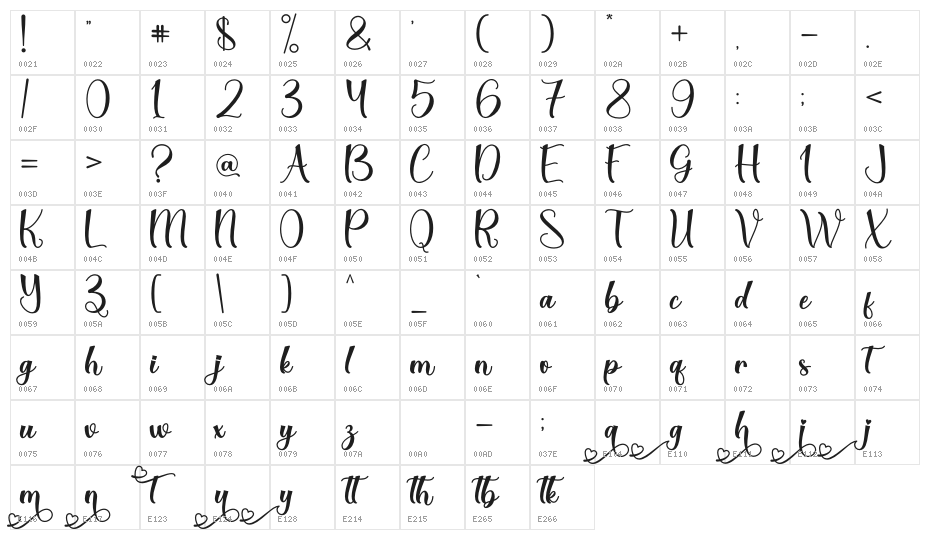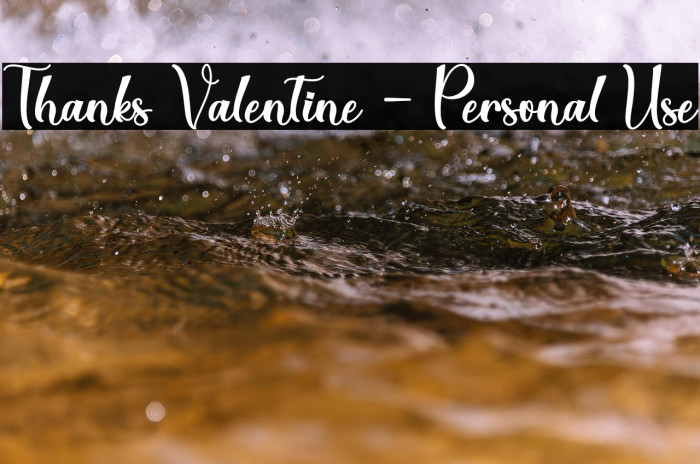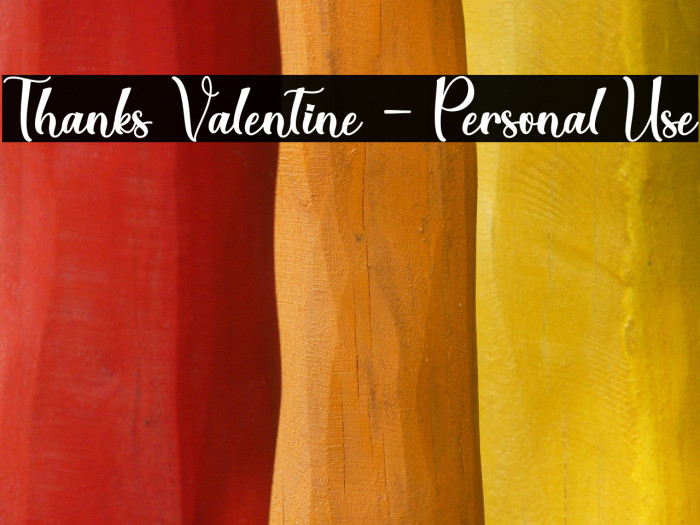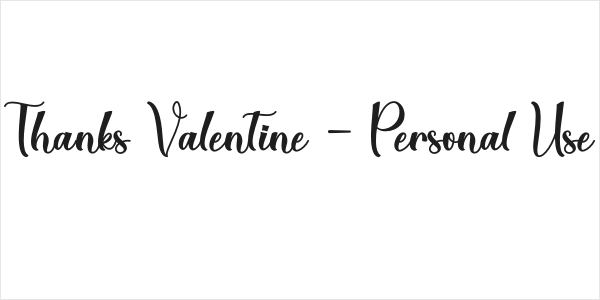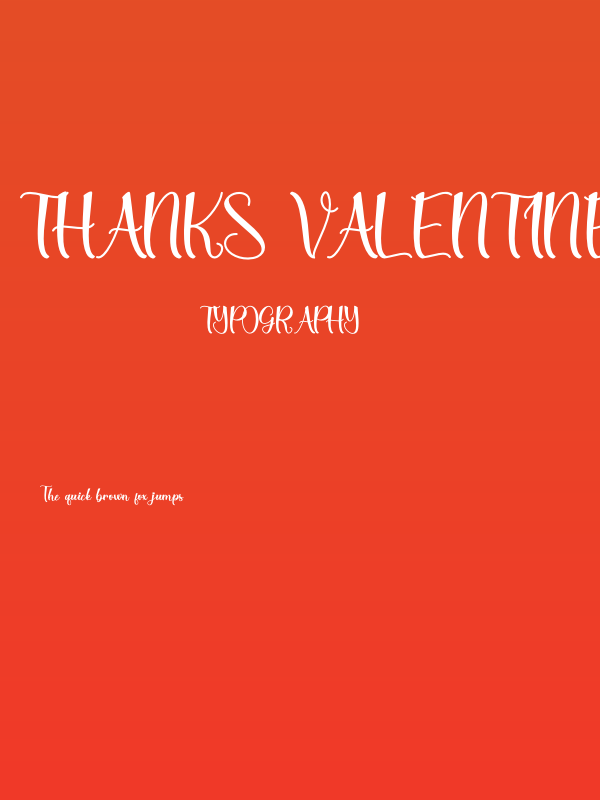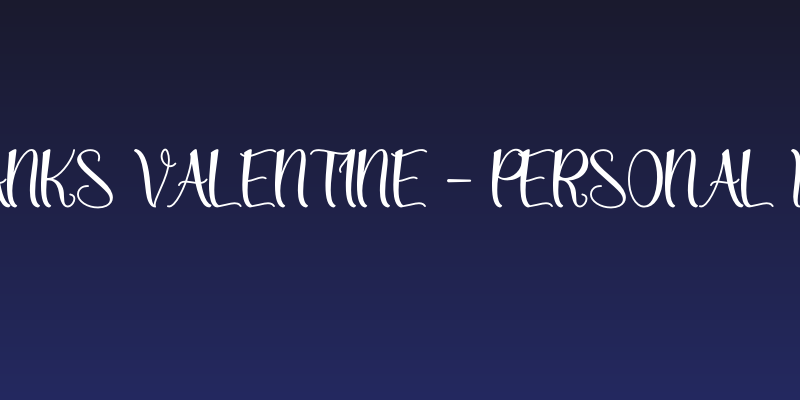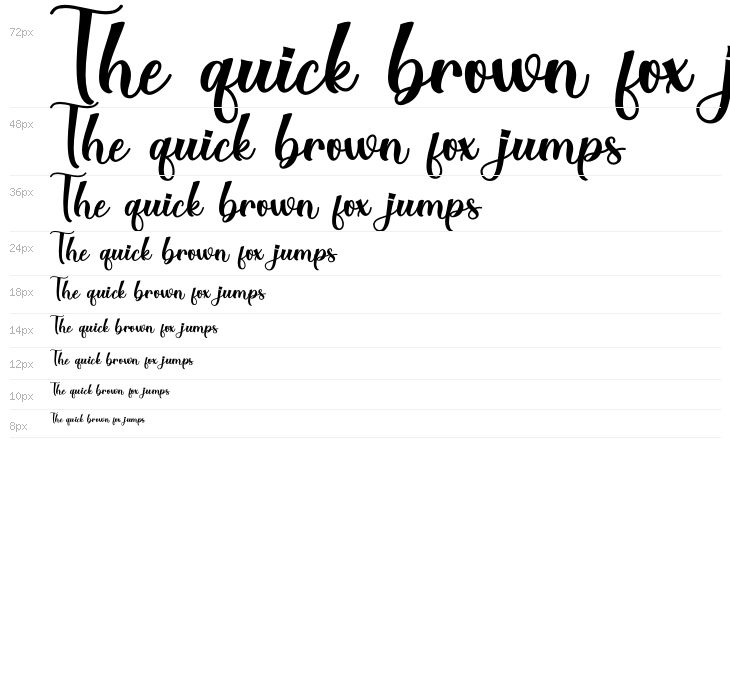
Thanks Valentine - Personal Use Font
Thanks Valentine - Personal Use Description
This font features a playful and elegant script style with a handwritten appearance. The uppercase letters are characterized by their flowing, cursive forms, while the lowercase letters maintain a consistent, smooth stroke. The numerals are distinct and easy to read, with a slight slant that complements the overall script style. Special characters are creatively designed, adding a whimsical touch. The font's strokes are moderately thick, providing good readability while maintaining a decorative flair. This style is perfect for adding a personal and charming touch to any design project.
| Proposed Projects | Ideal for wedding invitations, greeting cards, personal branding, and decorative signage. |